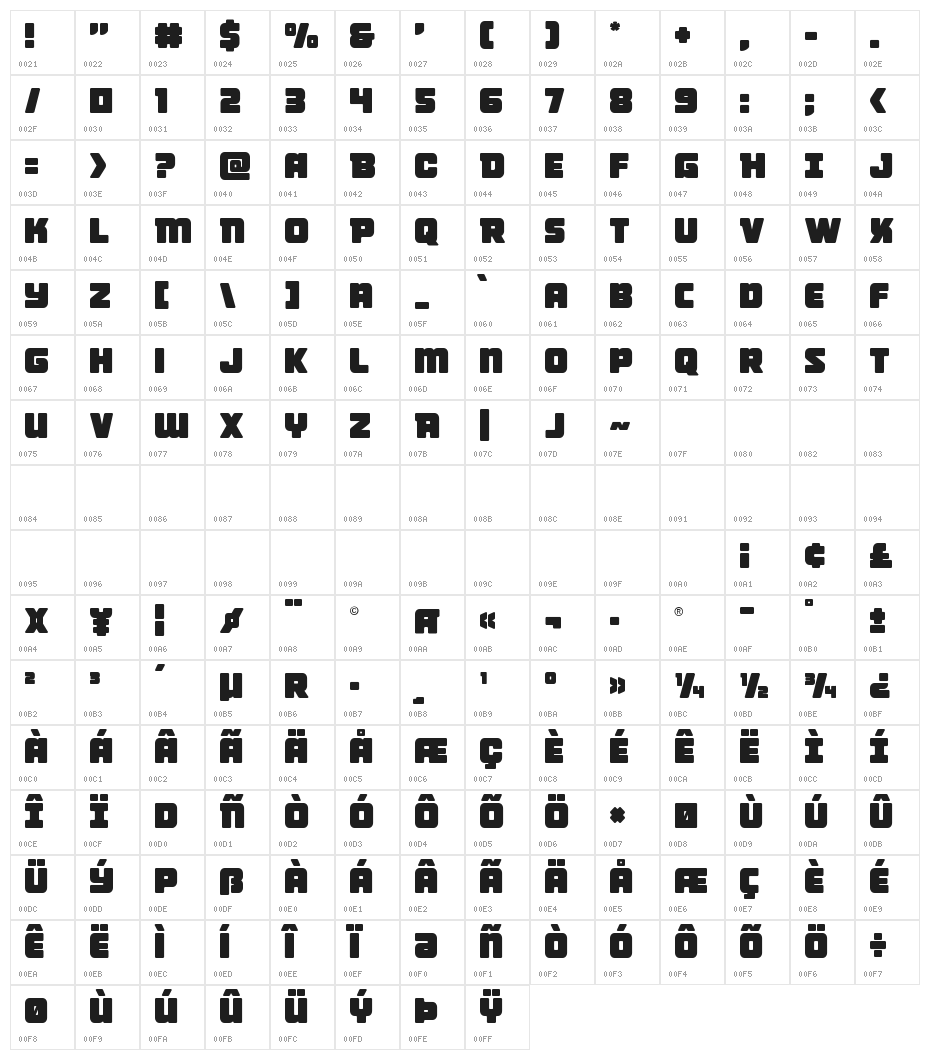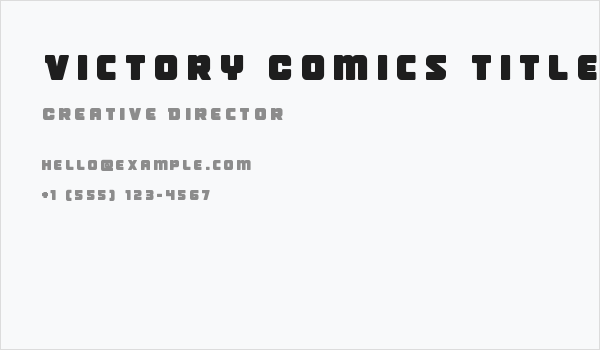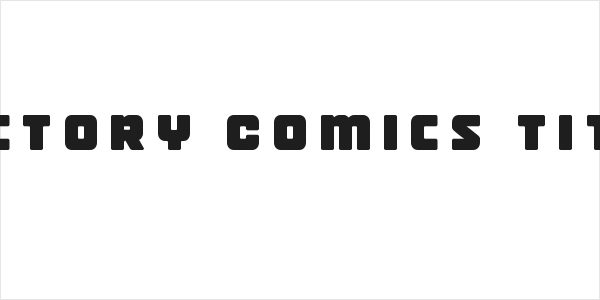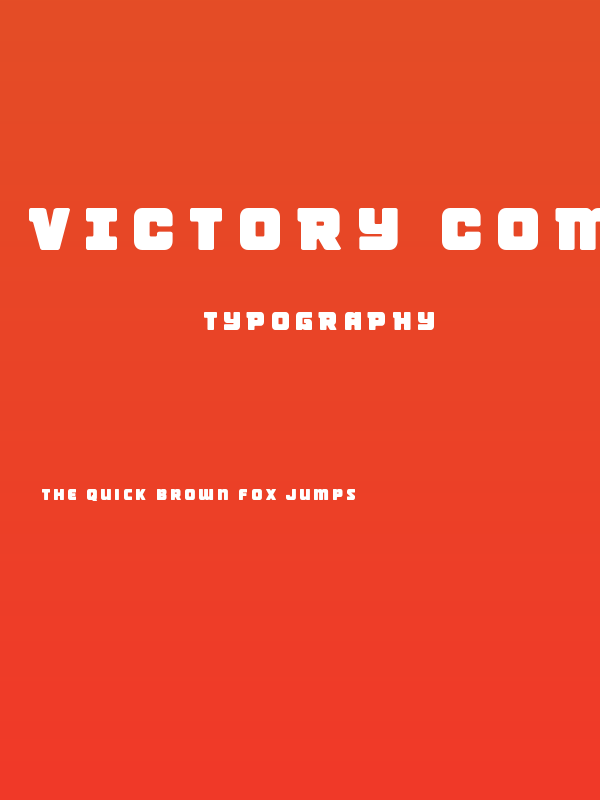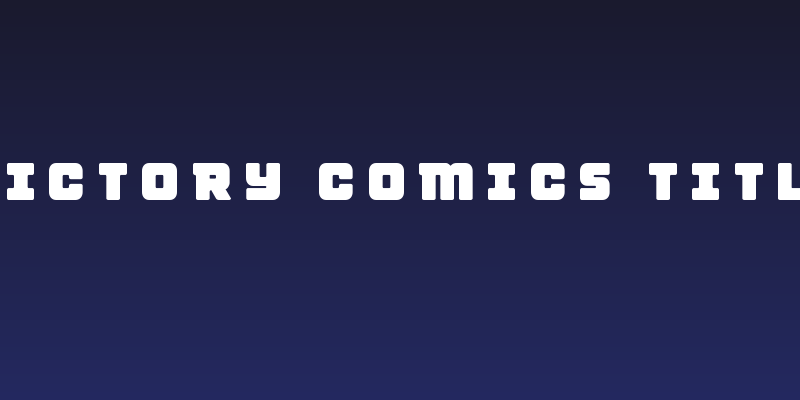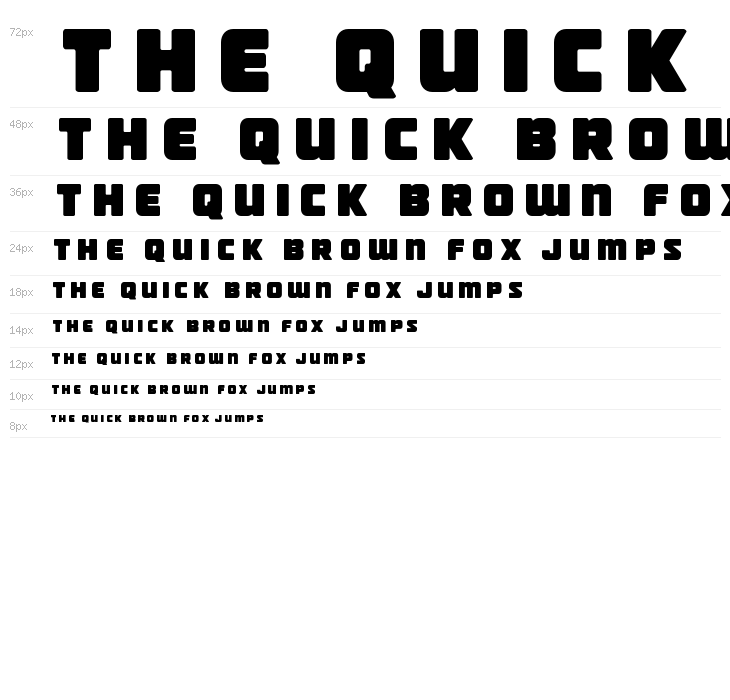
Victory Comics Title Font
Victory Comics Title Description
This font features a bold, blocky style with a strong presence, reminiscent of classic comic book titles. The characters are uniformly thick, with a consistent stroke width that gives them a sturdy and impactful appearance. The uppercase letters are particularly striking, with a geometric design that emphasizes straight lines and sharp angles. The numbers and special characters maintain this bold aesthetic, ensuring a cohesive look across all glyphs. The font's design is straightforward yet powerful, making it ideal for attention-grabbing headlines or titles.